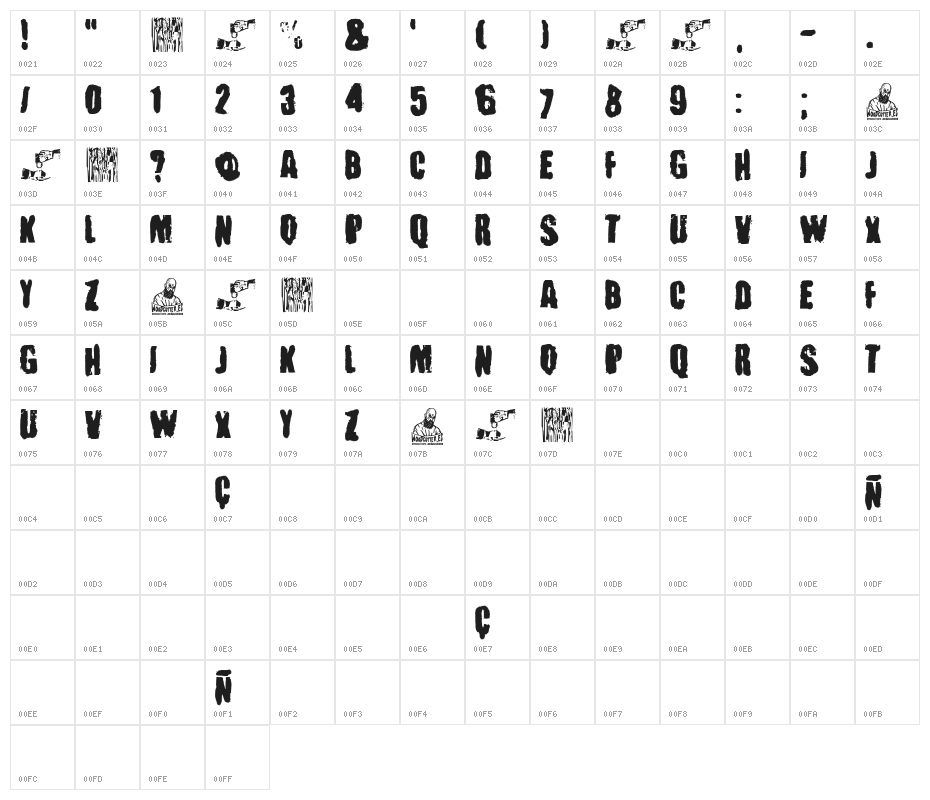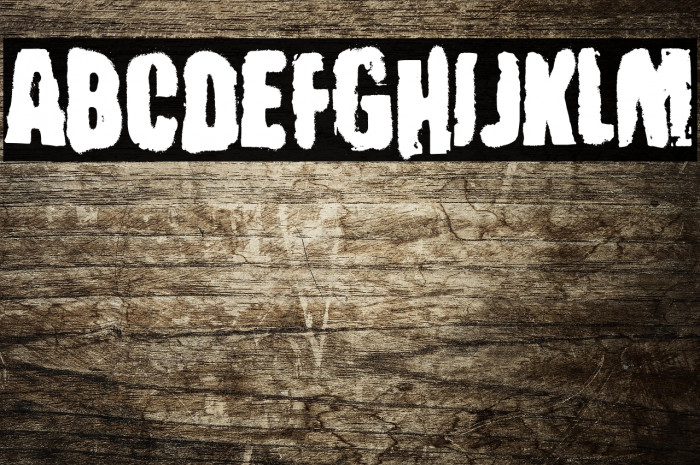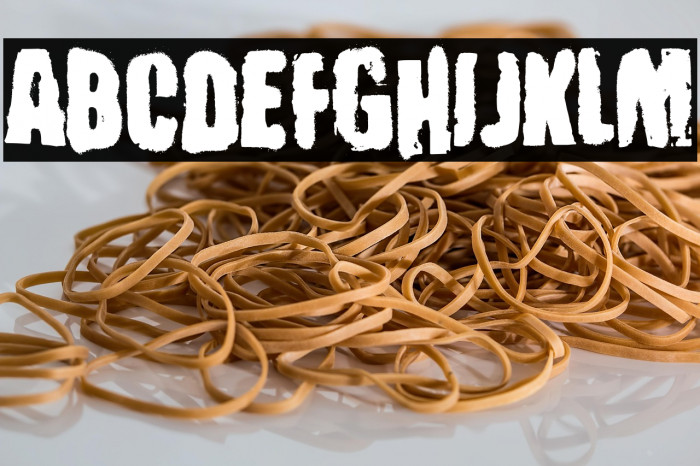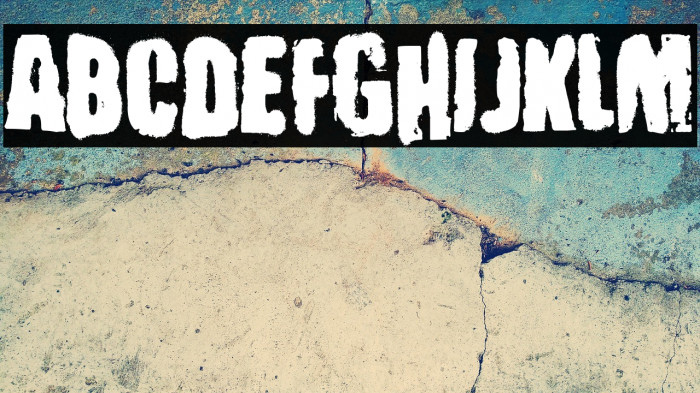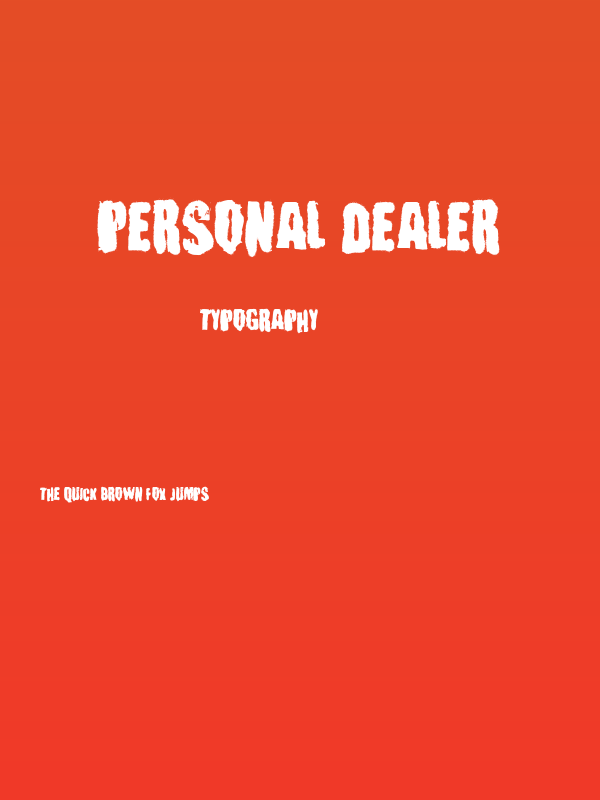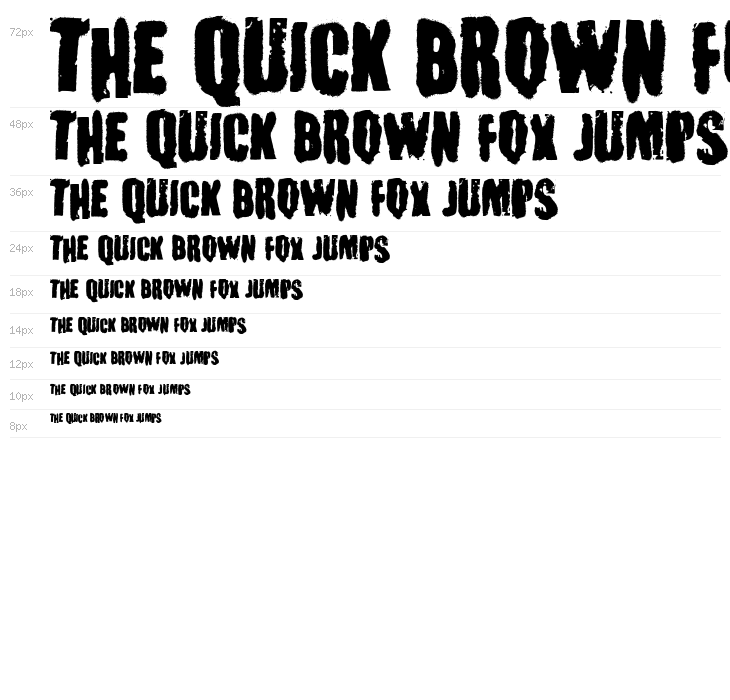
Personal Dealer Font
Personal Dealer Description
This font features a bold and distressed style, characterized by its rough, textured edges and uneven strokes. The letters have a hand-painted appearance, giving them a raw and organic feel. The uppercase and lowercase characters maintain a consistent boldness, while the numerals and special characters follow the same rugged aesthetic. The font's unique style makes it stand out, with each character appearing as if it has been individually crafted with a brush or sponge, adding a sense of authenticity and artistic flair.
| Proposed Projects | Ideal for projects requiring a gritty, artistic touch such as posters, album covers, or branding for creative industries. |